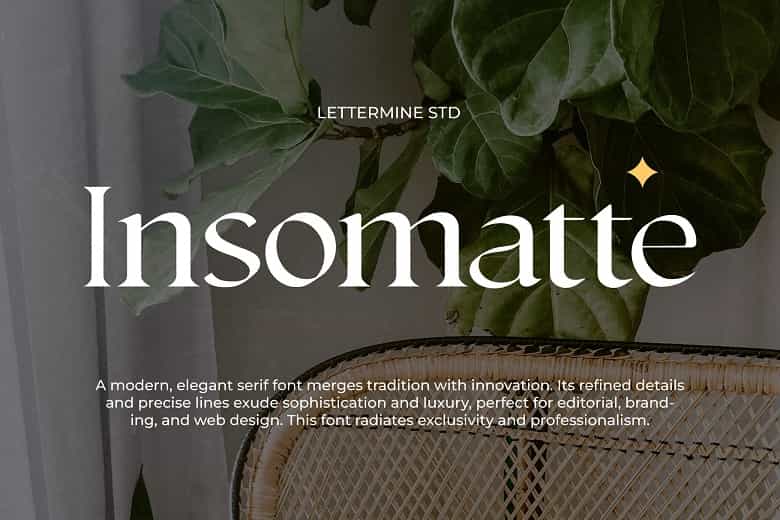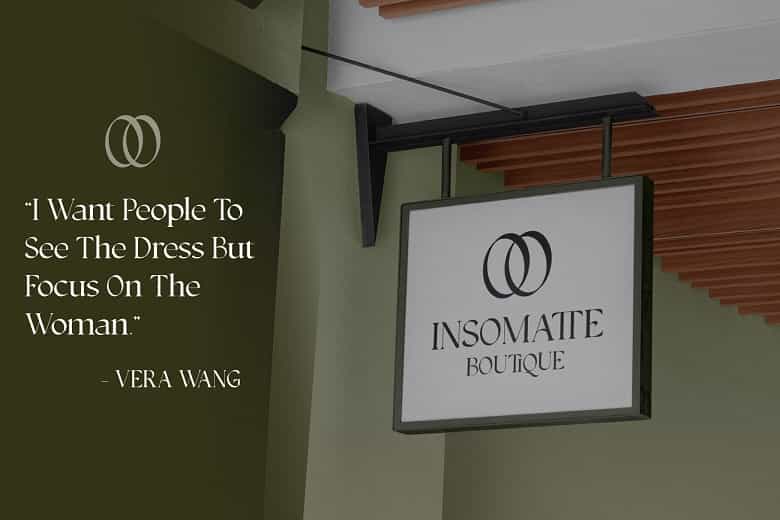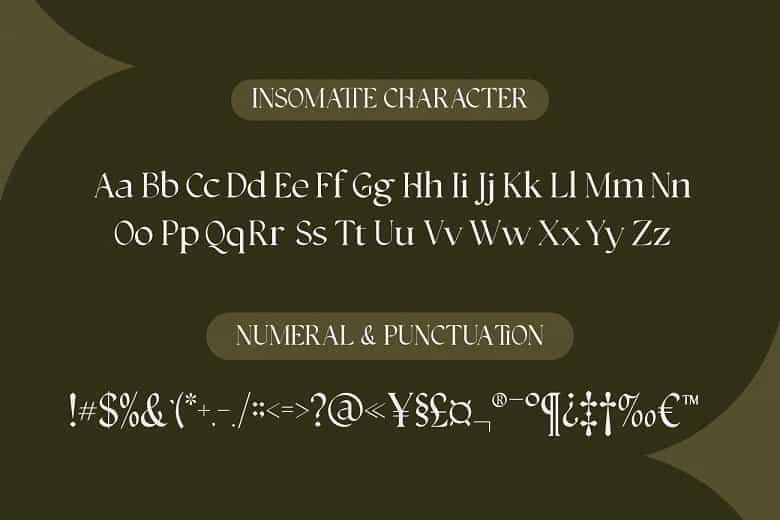
Insomatte is an elegant modern serif font that will help to give any project a touch of class. Stitched in a manner that ensures it meets all your design needs, It is perfect for branding & logo, wedding, editorial & publishing, social media, and product packaging.